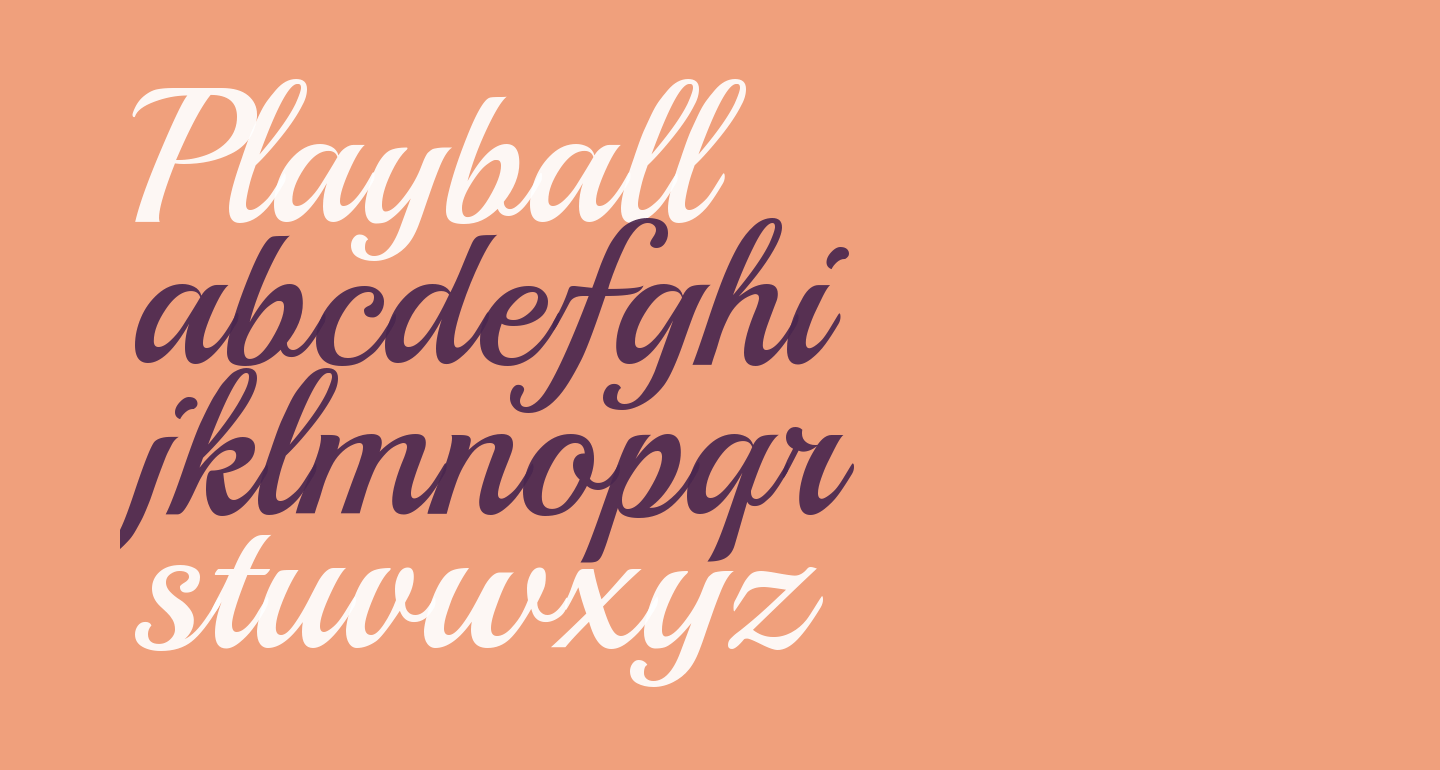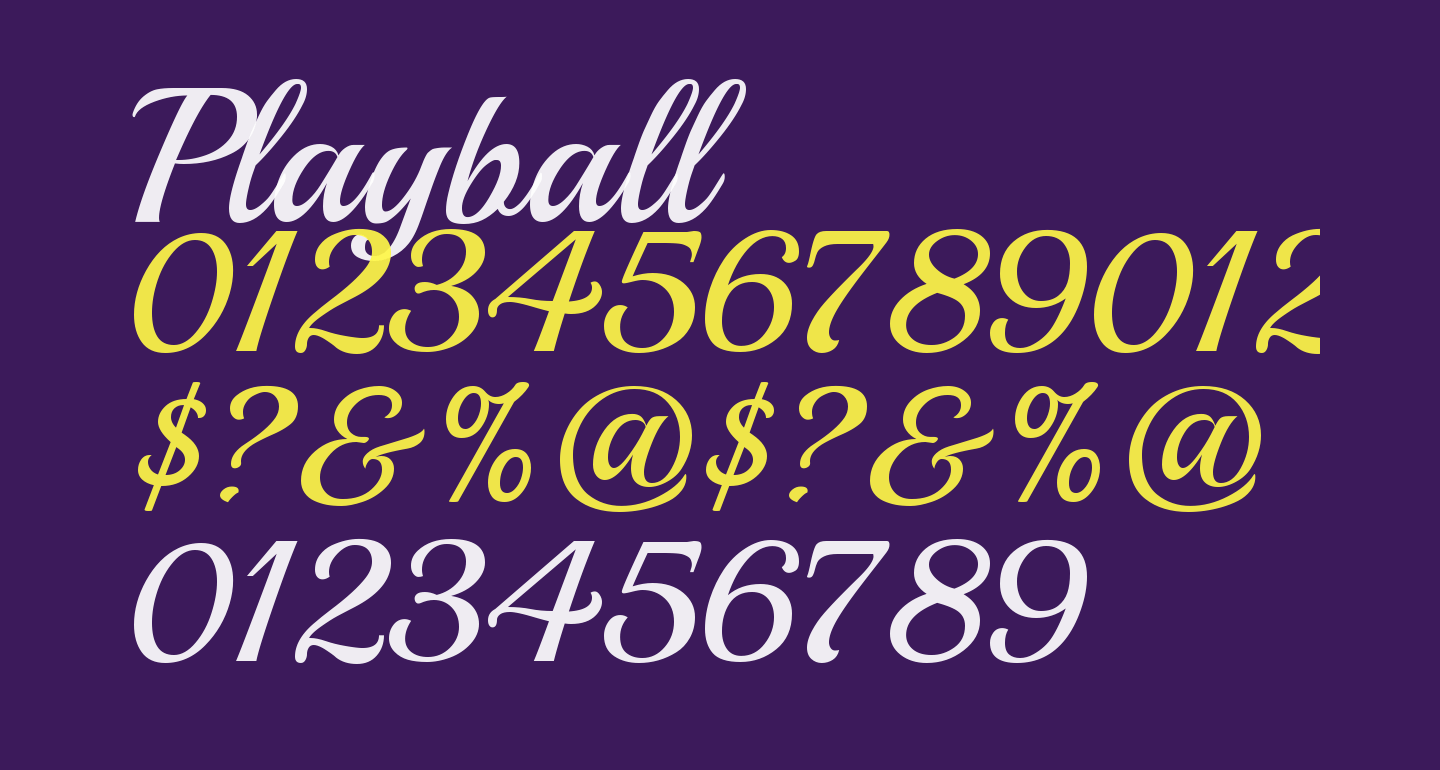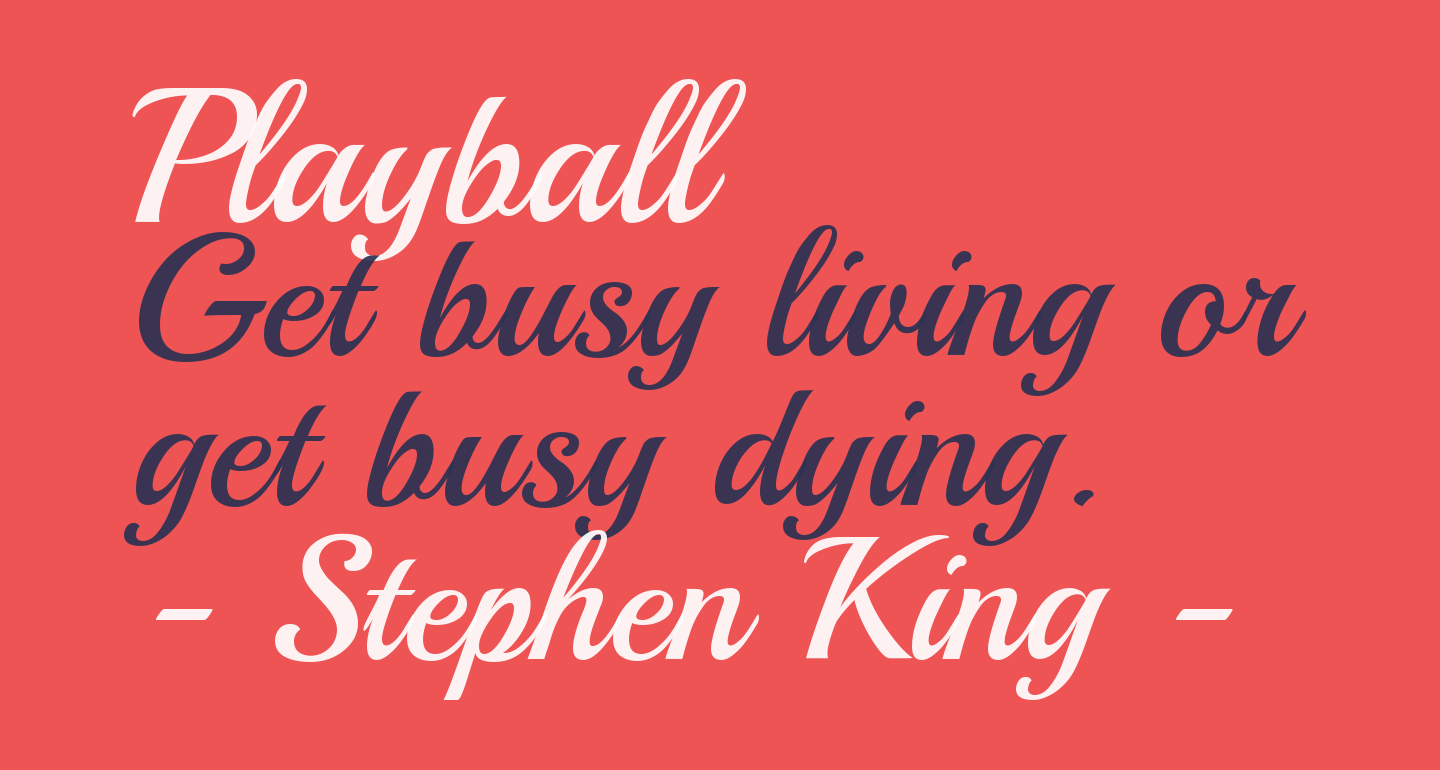
Aug 30, 2021 by free fonts leave a comment. The original playbill font was designed in 1938 by robert harling and was based on woodtypes, a style made popular on posters in western america. Cinthia sepulveda who played the role of cassandra in both of our competition performances & matthew harris.
Playbill is a powerfully expressive brush font that mixes an edgy city aesthetic with an effortless feminine waft. It seems proper to start with the first and best known. Festive occasions and sporty events.
The Original Playbill Font Was Designed In 1938 By Robert Harling And Was Based On Woodtypes, A Style Made Popular On Posters In Western America.
We would also like to recognize. This font is part of microsoft office 2016 software package so it cannot be downloaded separately. Playball is a unicode typeface that supports languages that.